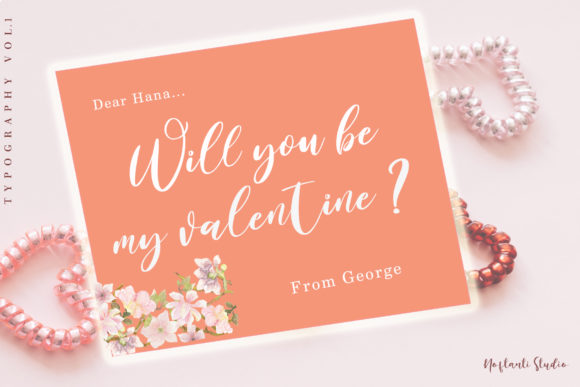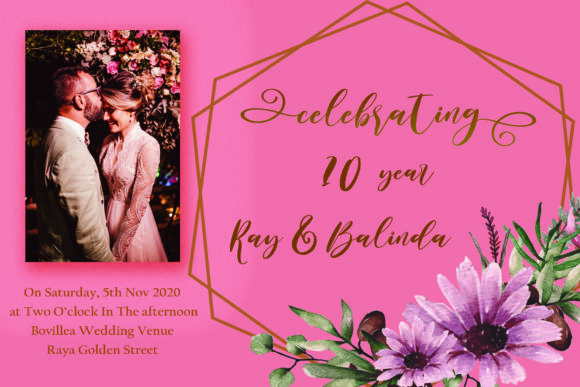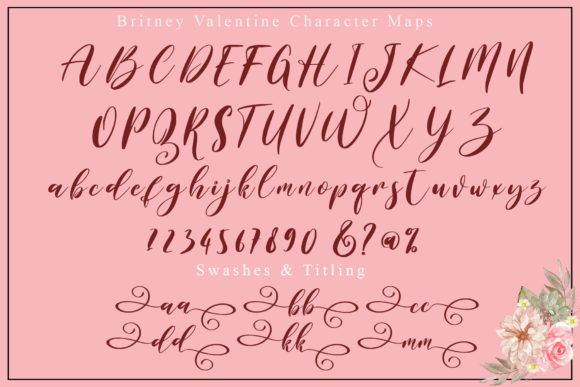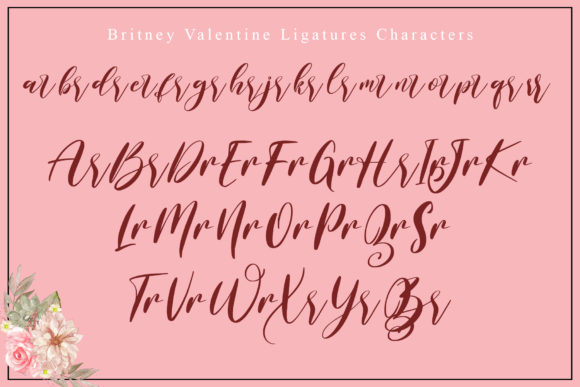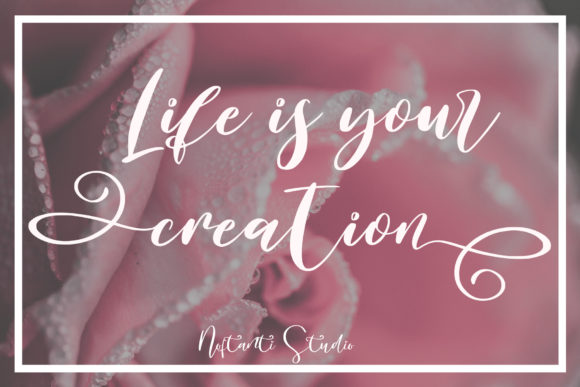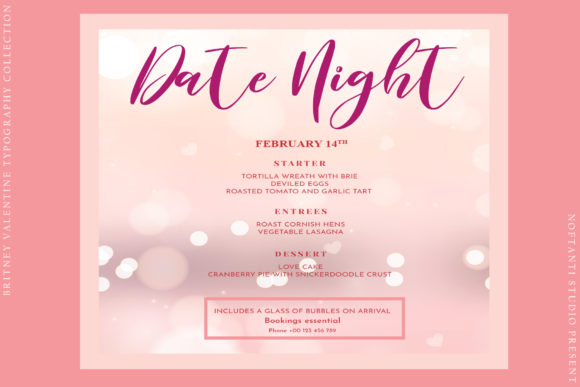
Have you ever been stuck on a design project, searching for that perfect font to bring your vision to life? I know I have! It’s like trying to find the perfect match for your favorite pair of shoes – you want something that complements your style and elevates your creation. That’s exactly what the Britney Valentine Font does. This modern handwritten font is designed to add a touch of sophistication and elegance to any design project, making it a must-have for designers and creatives.
The Britney Valentine Font is perfect for branding, headings, wedding designs, invitations, signatures, logos, labels, and much more. Its unique style and versatility make it a valuable asset for designers, allowing them to create stunning and memorable designs that stand out from the crowd. Whether you’re a seasoned pro or just starting out, the Britney Valentine Font is sure to inspire your next creative project.
Britney Valentine Font Key Features
- Font Family: Britney Valentine is a script font with a unique, hand-drawn feel.
- Size: The font includes a wide range of glyphs, covering over 200 characters, including Latin, Cyrillic, and Greek alphabets.
- Unique Characteristics: The font features a distinctive, flowing style with subtle flourishes and ligatures, adding a touch of elegance and sophistication to any design.
Britney Valentine Font Review
First off, let’s talk about what I love about Britney Valentine Font ✨. It’s a fun, playful font that’s perfect for designs that need a touch of whimsy. The script style is well-executed, with smooth connections between letters and a consistent flow. The font also has a good range of weights and styles, making it easy to use in a variety of design contexts.
- The font is highly customizable, with a range of options for adjusting the style and feel.
- It’s a great choice for designs that need to convey a sense of fun and playfulness.
- The font is well-suited for use in social media graphics, blog posts, and other online content.
Now, let’s talk about some limitations ⚠️. While Britney Valentine Font is a great choice for many design projects, it’s not ideal for use in formal or professional contexts. The font’s playful style may come across as unprofessional in some situations. Additionally, the font may not be as legible at very small sizes, which could be a concern for designs that need to be viewed on small screens.
Overall, I think Britney Valentine Font is a great choice for designers who need a fun and playful font for their projects. While it may not be suitable for every design context, it’s a great addition to any designer’s toolkit.
Getting the Most Out of Britney Valentine Font
For the best results, use Britney Valentine Font in conjunction with bold, playful, or cursive text elements. It’s ideal for creating eye-catching titles, headings, and quotes. You can also use it to add a touch of whimsy to your designs.
Britney Valentine Font is perfect for:
- Birthday